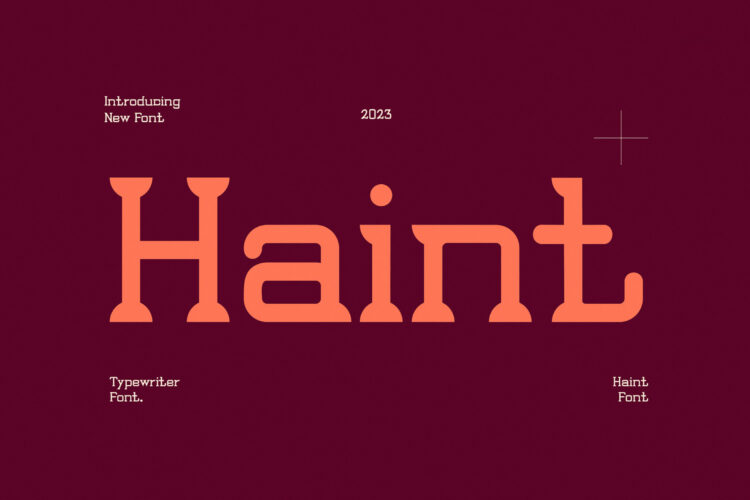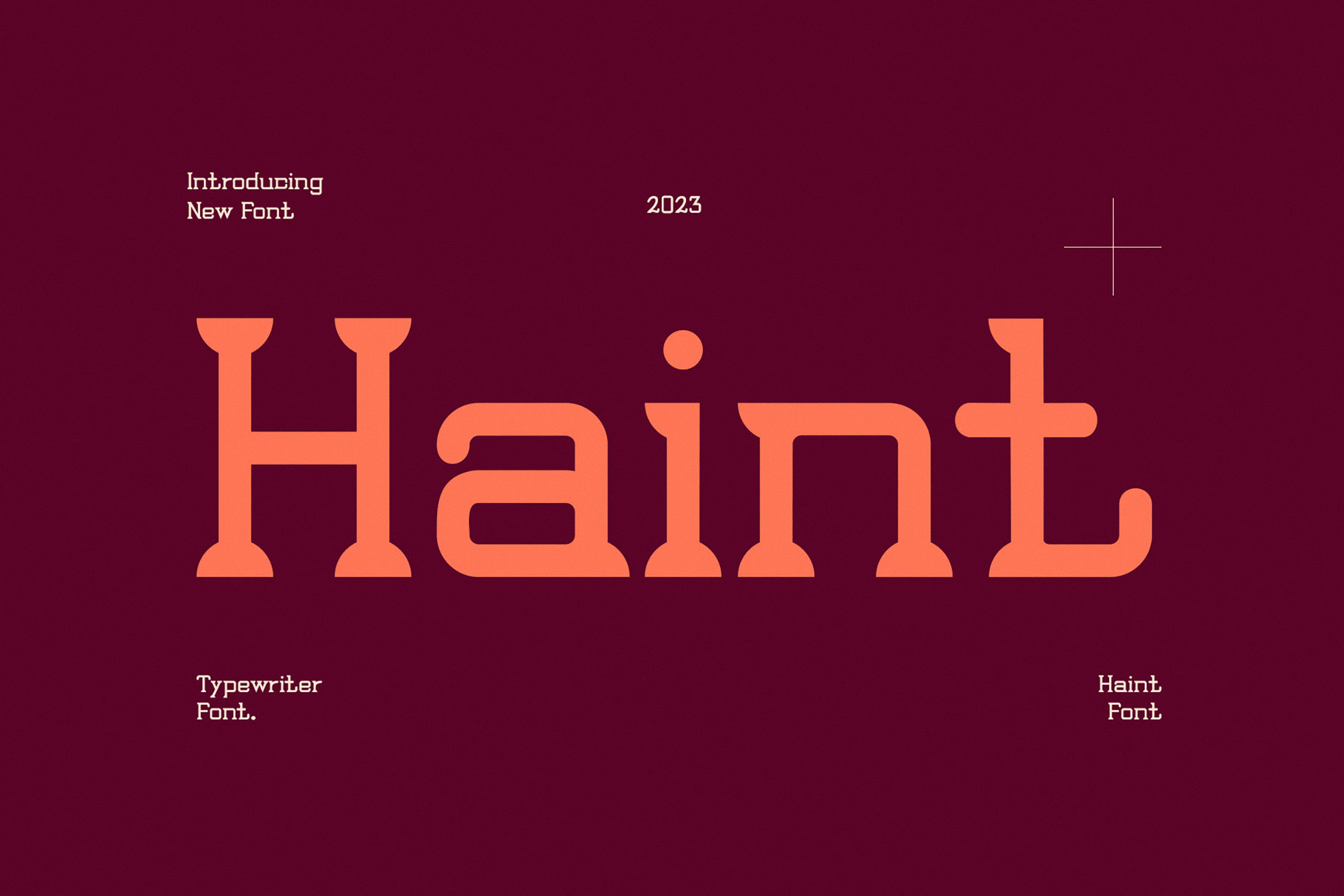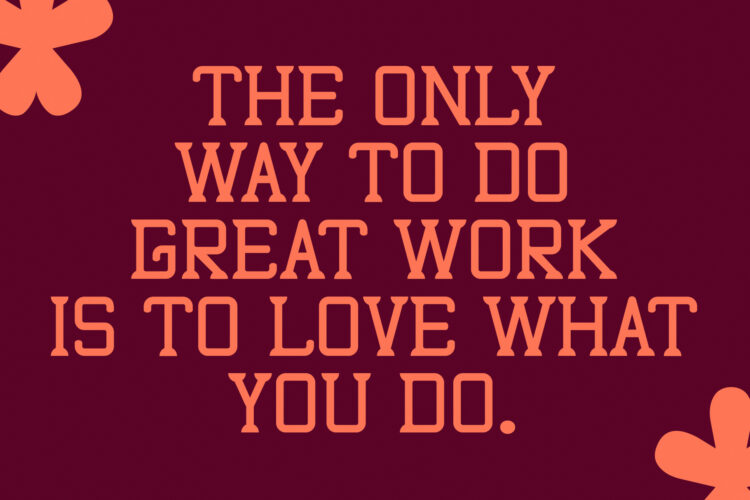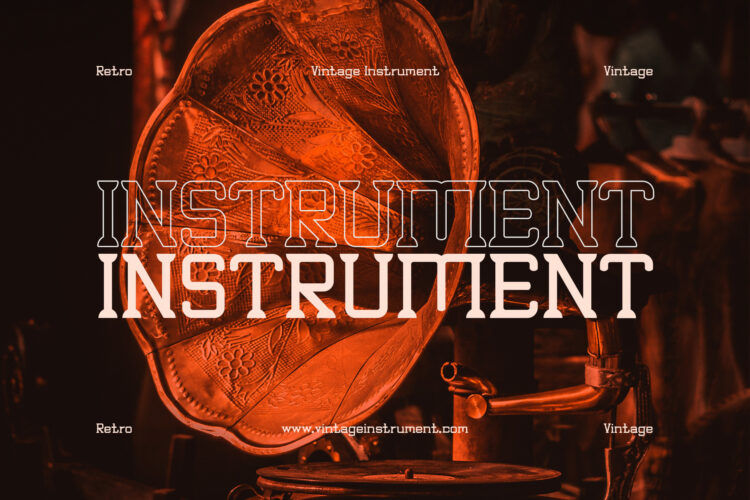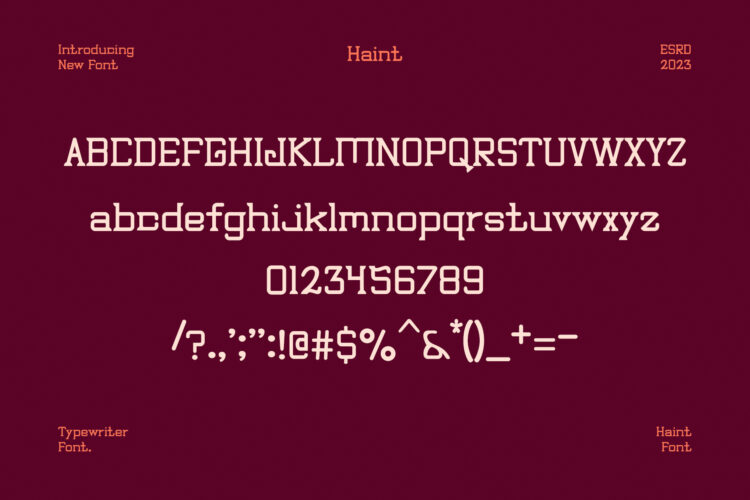
Introducing our new Haint, modern serif font with elegant style this is perfect for branding, logos, invitation, magazines, product packaging and more.
Haint – Modern Serif Font